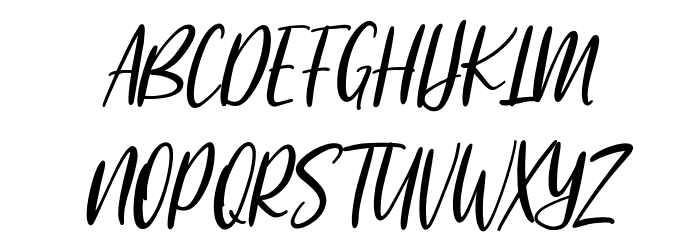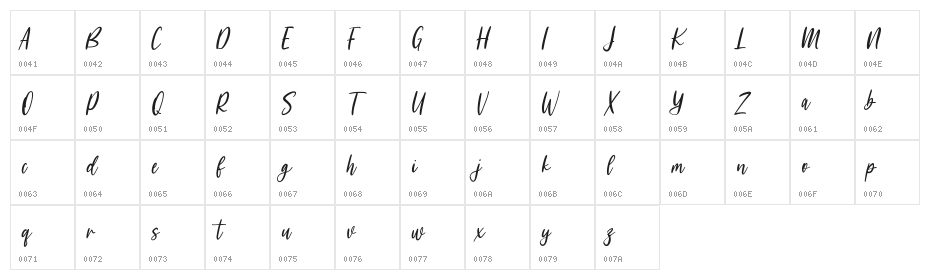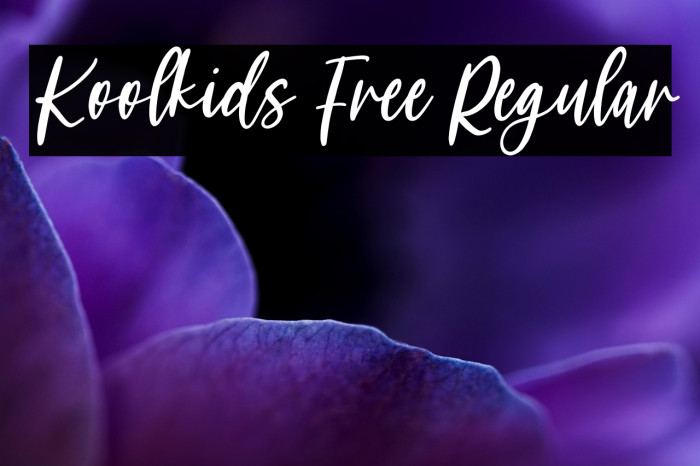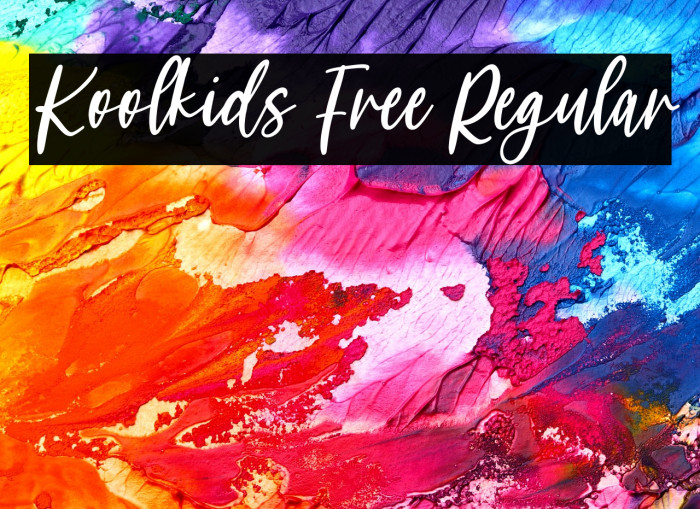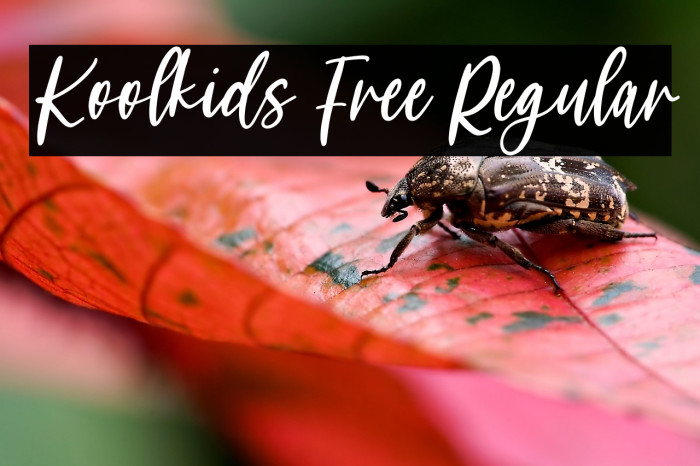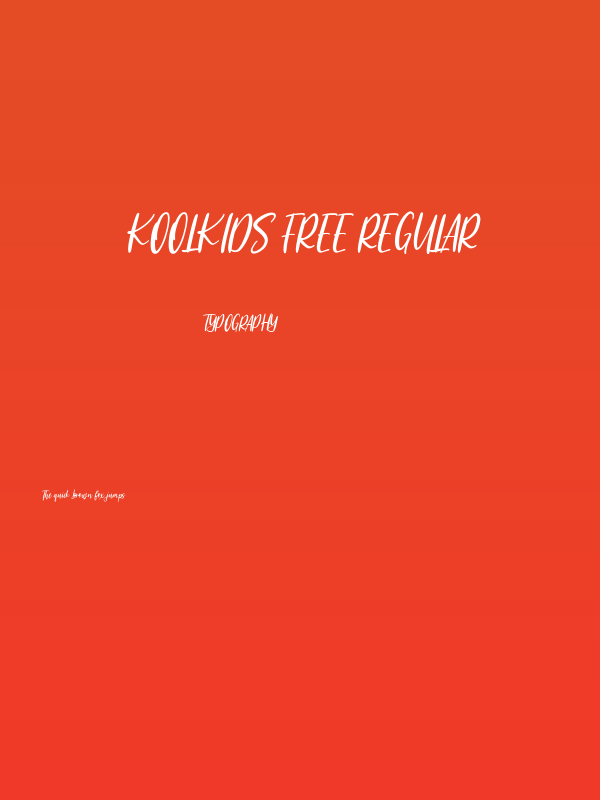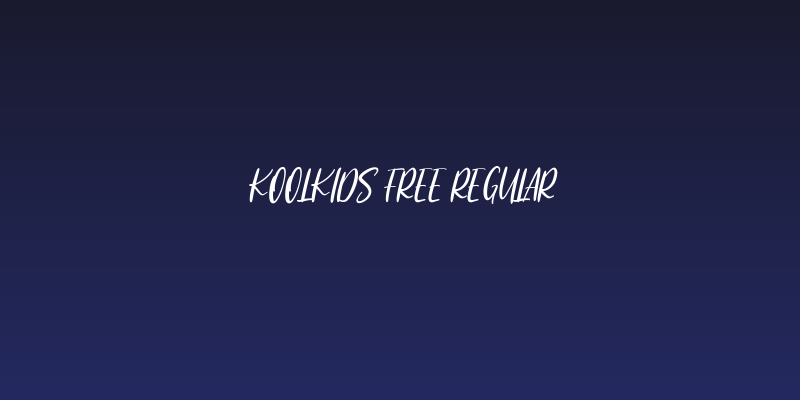
Koolkids Free Regular Font
Koolkids Free Regular Description
This font features a playful and dynamic script style, characterized by its fluid and cursive letterforms. The strokes are smooth and connected, giving it a handwritten appearance that is both casual and elegant. The uppercase letters are bold and slightly slanted, while the lowercase letters maintain a consistent flow with a slight bounce, adding to its lively character. The overall design is modern and stylish, making it suitable for a variety of creative projects. Its unique style is perfect for adding a personal touch to any design.
| Proposed Projects | Ideal for greeting cards, invitations, branding, social media graphics, and personal projects. |